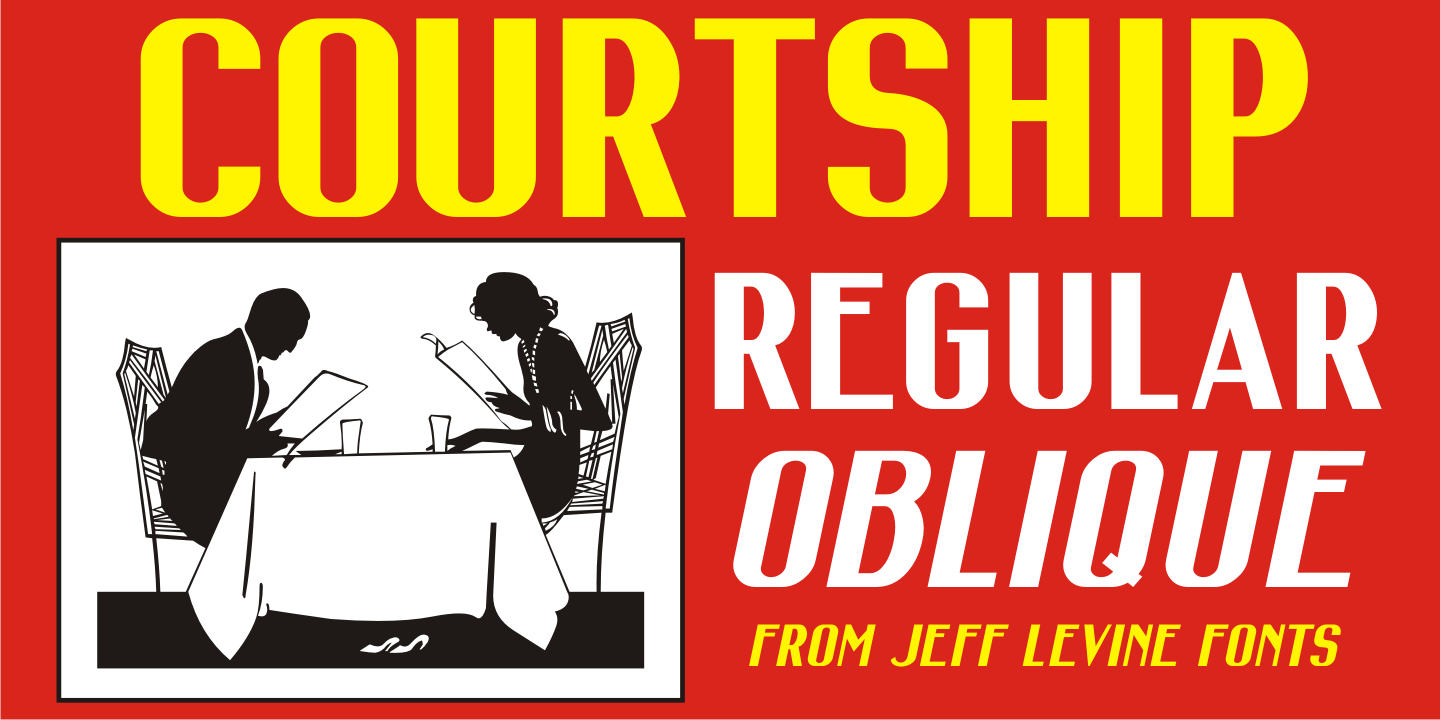
Courtship
The Art Nouveau hand lettered title on the sheet music for the 1909 composition "If the Wind Had Only Blown the Other Way" was the basis for Courtship JNL, which is available in both regular and oblique versions.